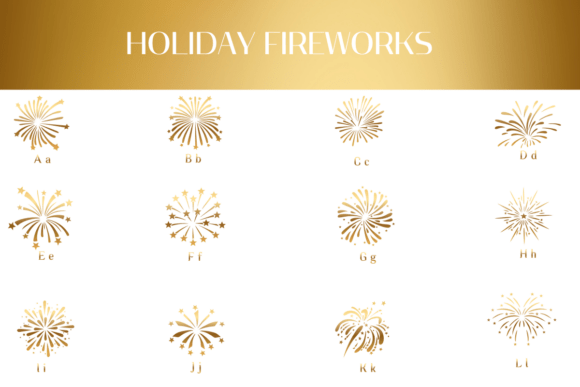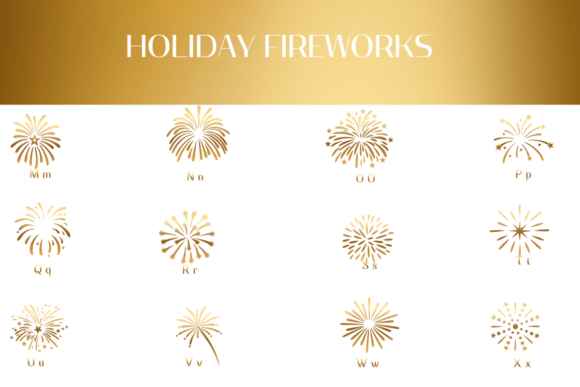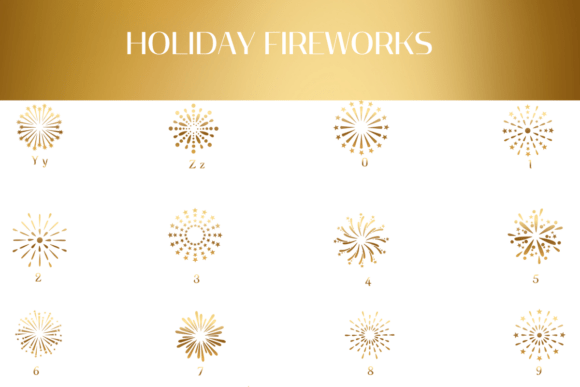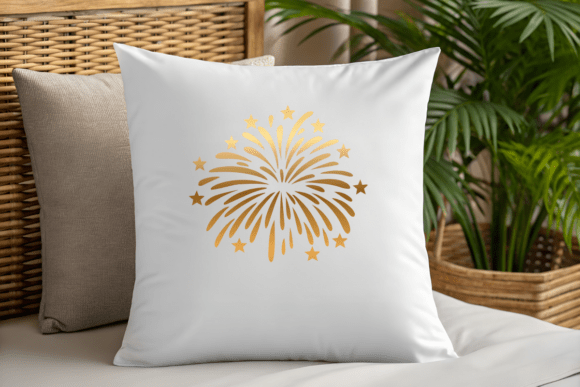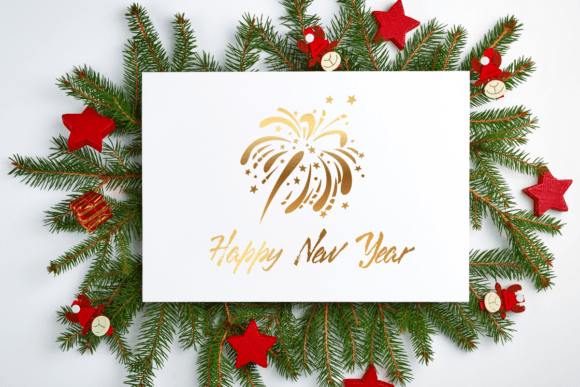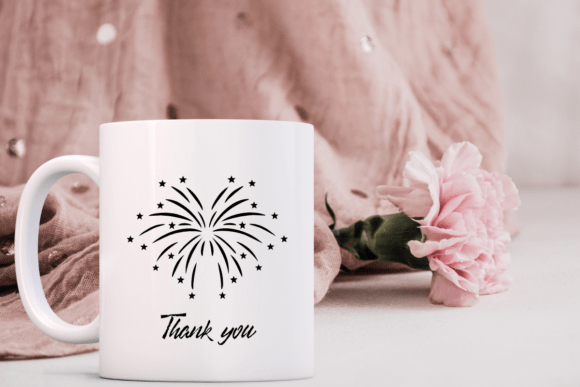
Introduction to Holiday Fireworks Font
Holiday Fireworks is a lovely dingbats font.
Add it to your creative projects and you will love the results .
Key Features of Holiday Fireworks Font